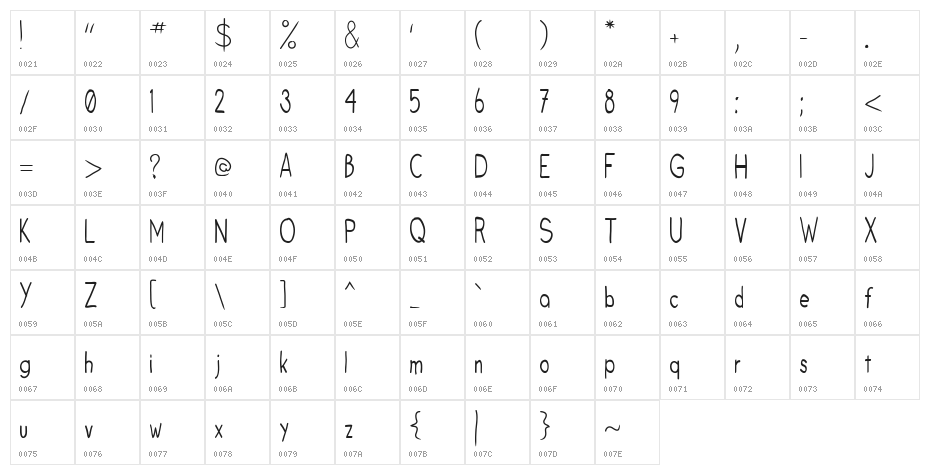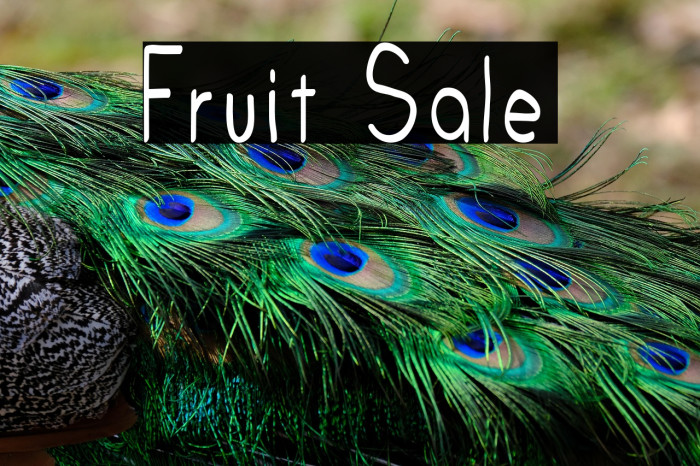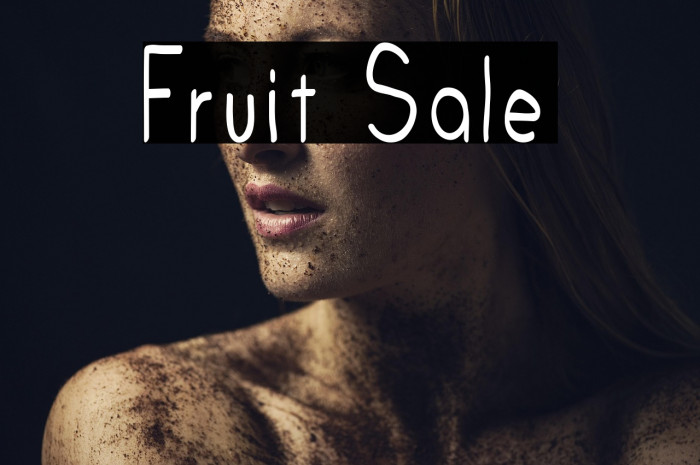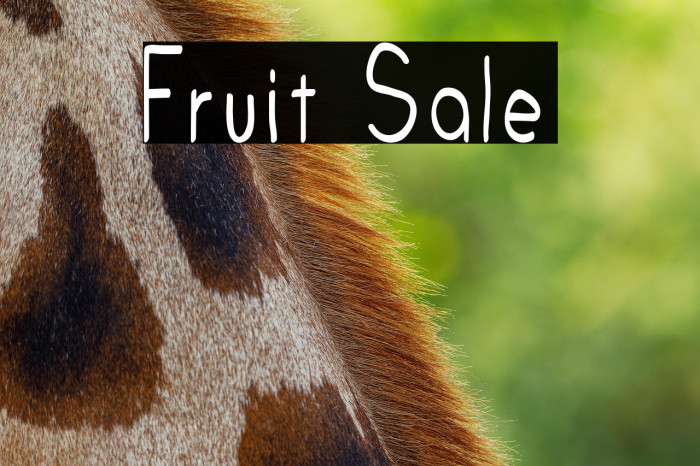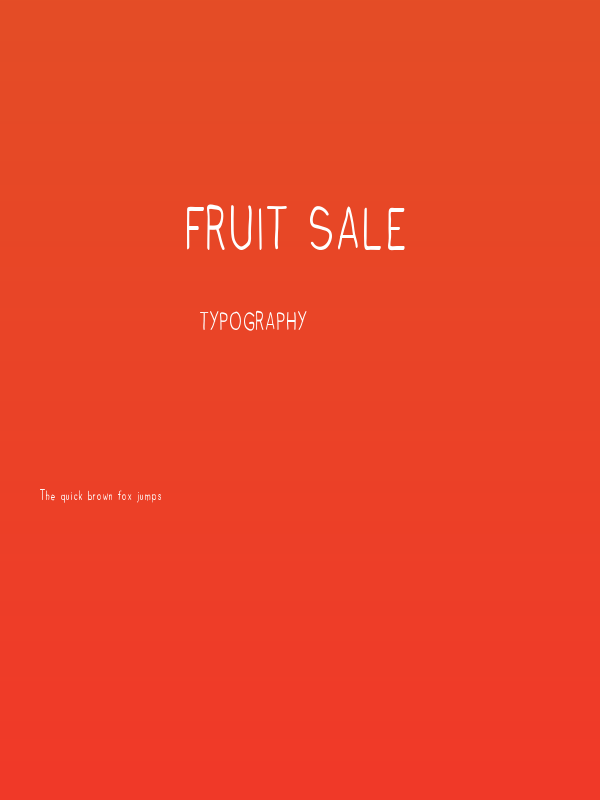
Fruit Sale Font
Fruit Sale Description
This font features a playful and informal handwritten style, characterized by its irregular strokes and casual appearance. The letters are slightly uneven, giving it a charming and approachable feel. The uppercase and lowercase letters maintain a consistent style, with rounded edges and a friendly demeanor. Numbers and special characters follow the same whimsical design, making it suitable for projects that require a personal touch. The overall look is relaxed and inviting, perfect for conveying warmth and friendliness.
| Proposed Projects | Ideal for children's books, greeting cards, casual branding, and playful posters. |